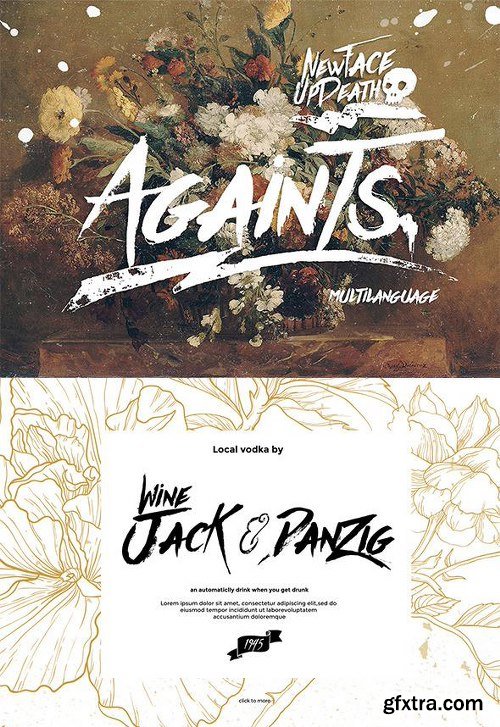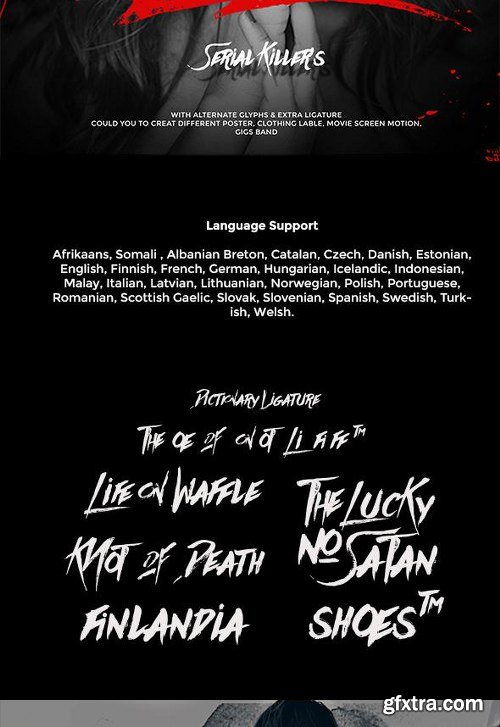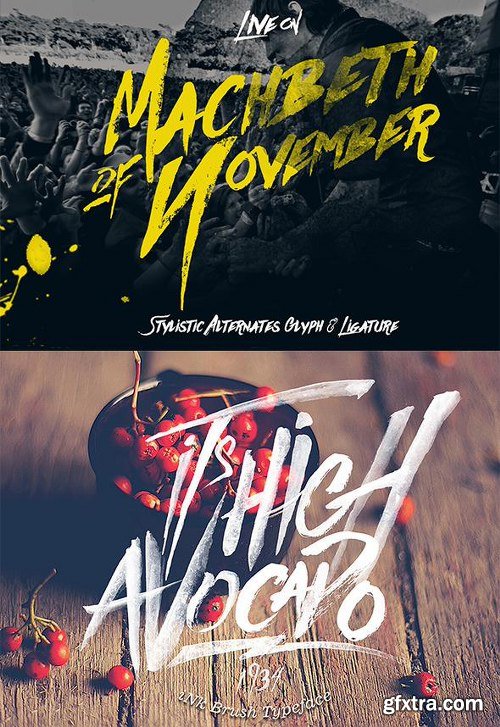
- Againts Typeface was inspired from ink & tints manual handdrawn brush to make a natural messy, with alternate glyphs in some character of type could you make a stylish design, and extra Ligature could help to good display, uses for labeling, clothing, movie sceen, film title, gigs, or cover album, help inside. Stylish alternate, dictionary ligatures, web fonts, multi language character,